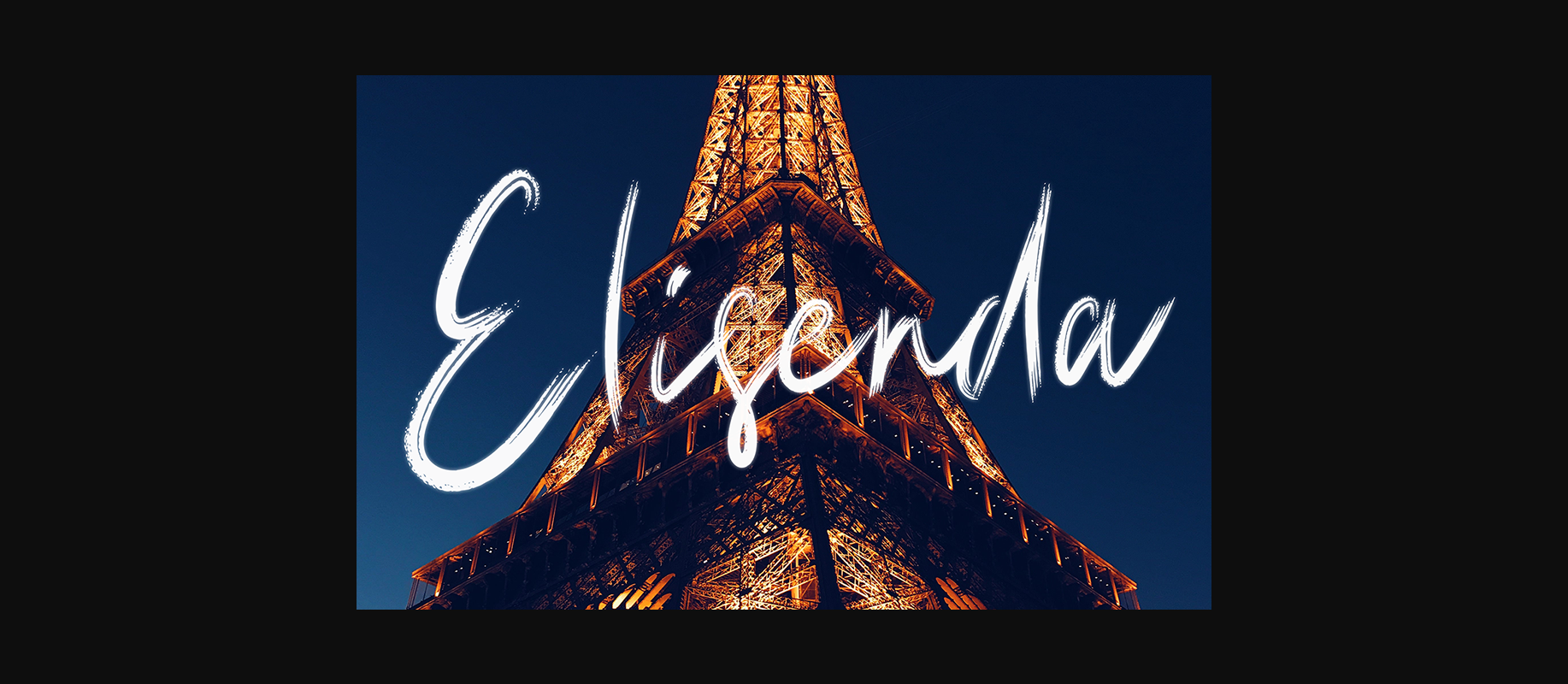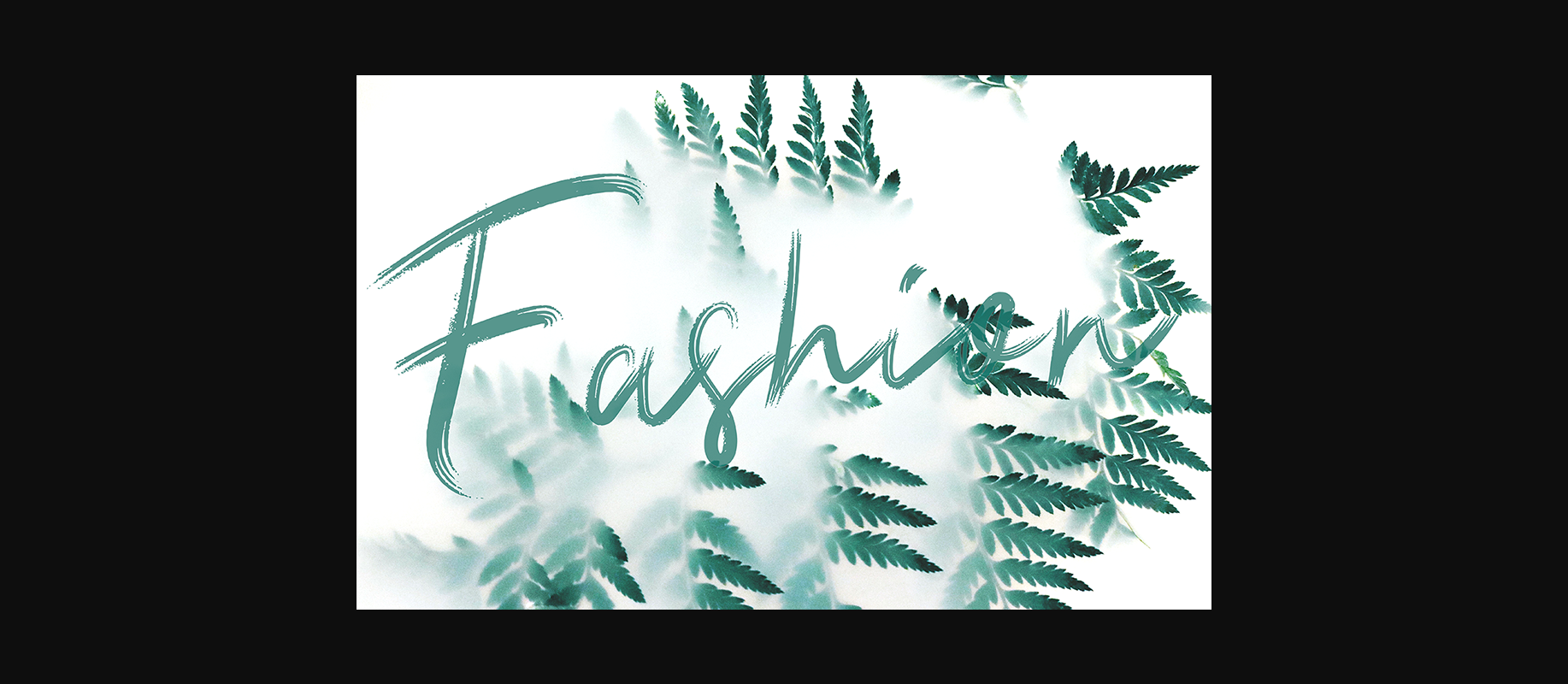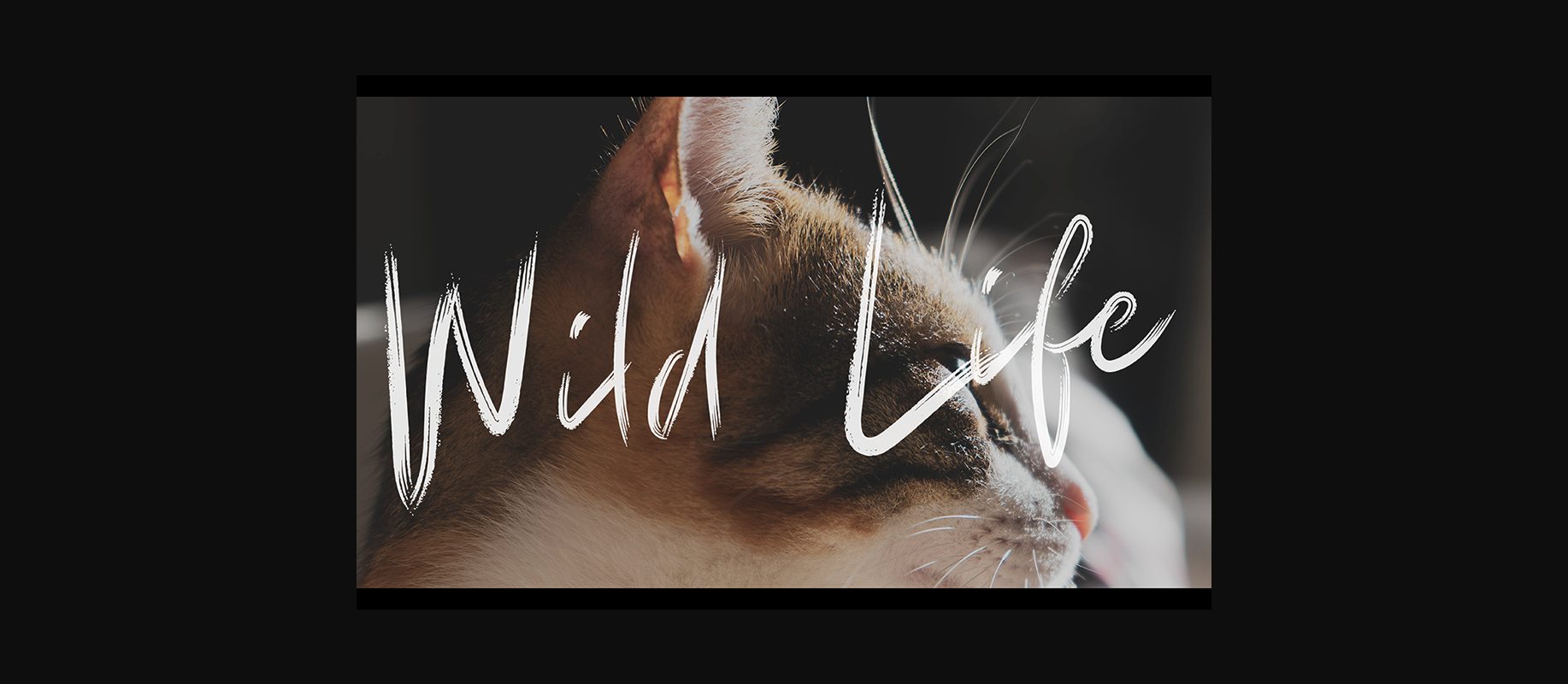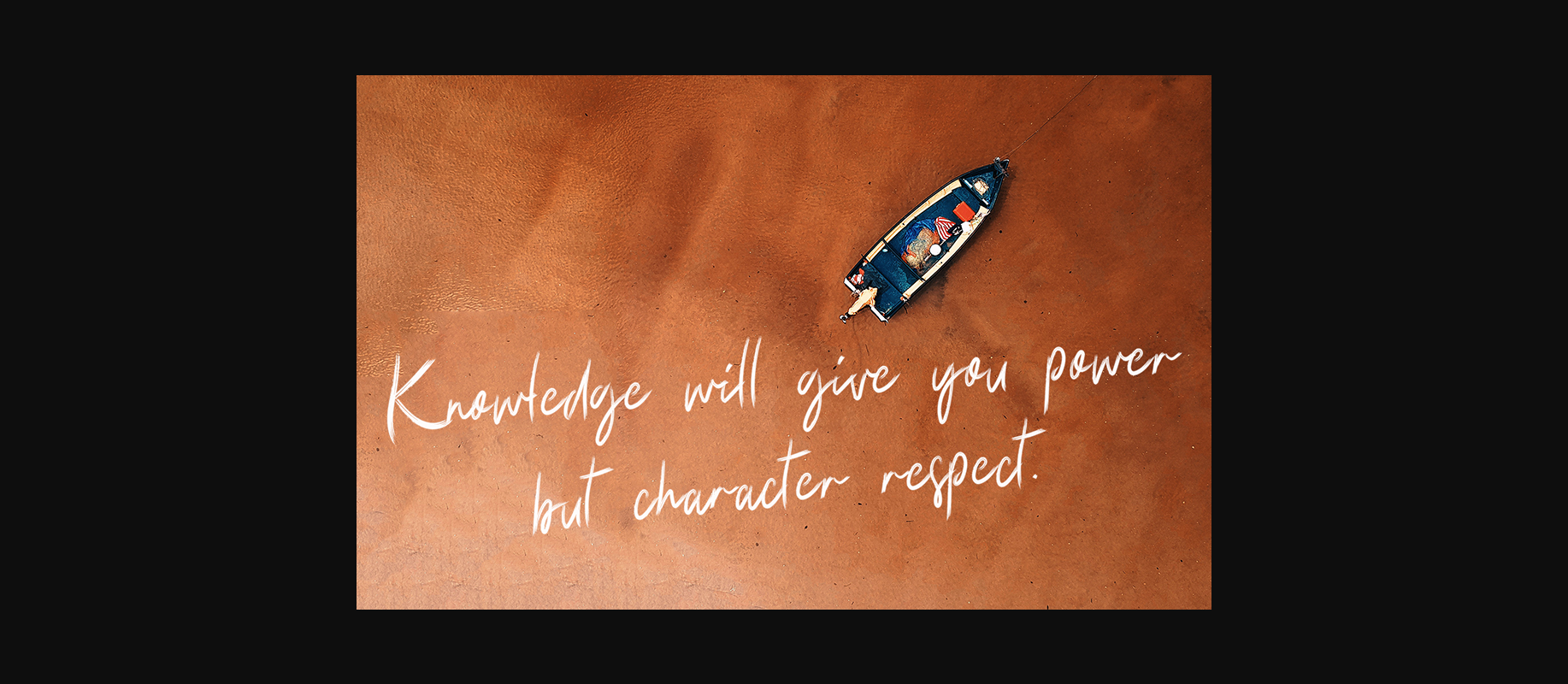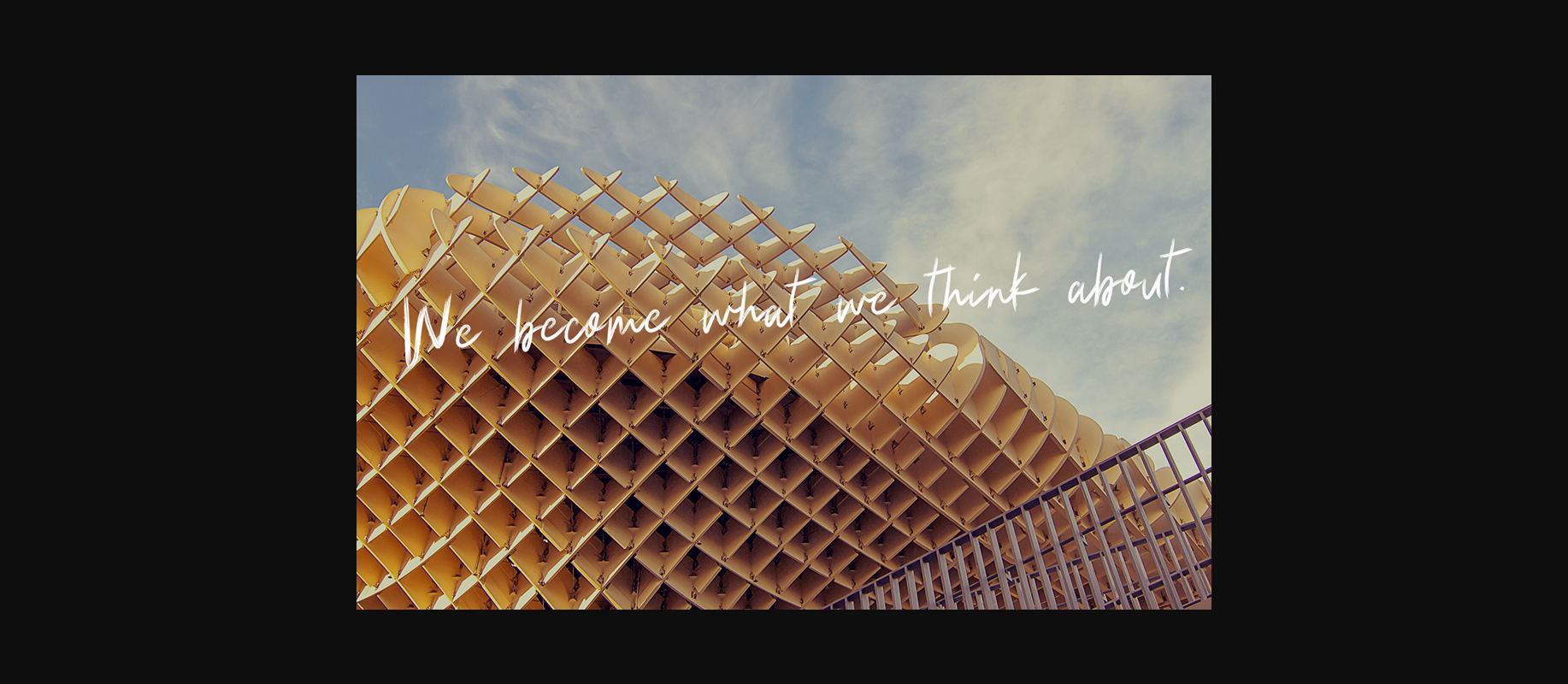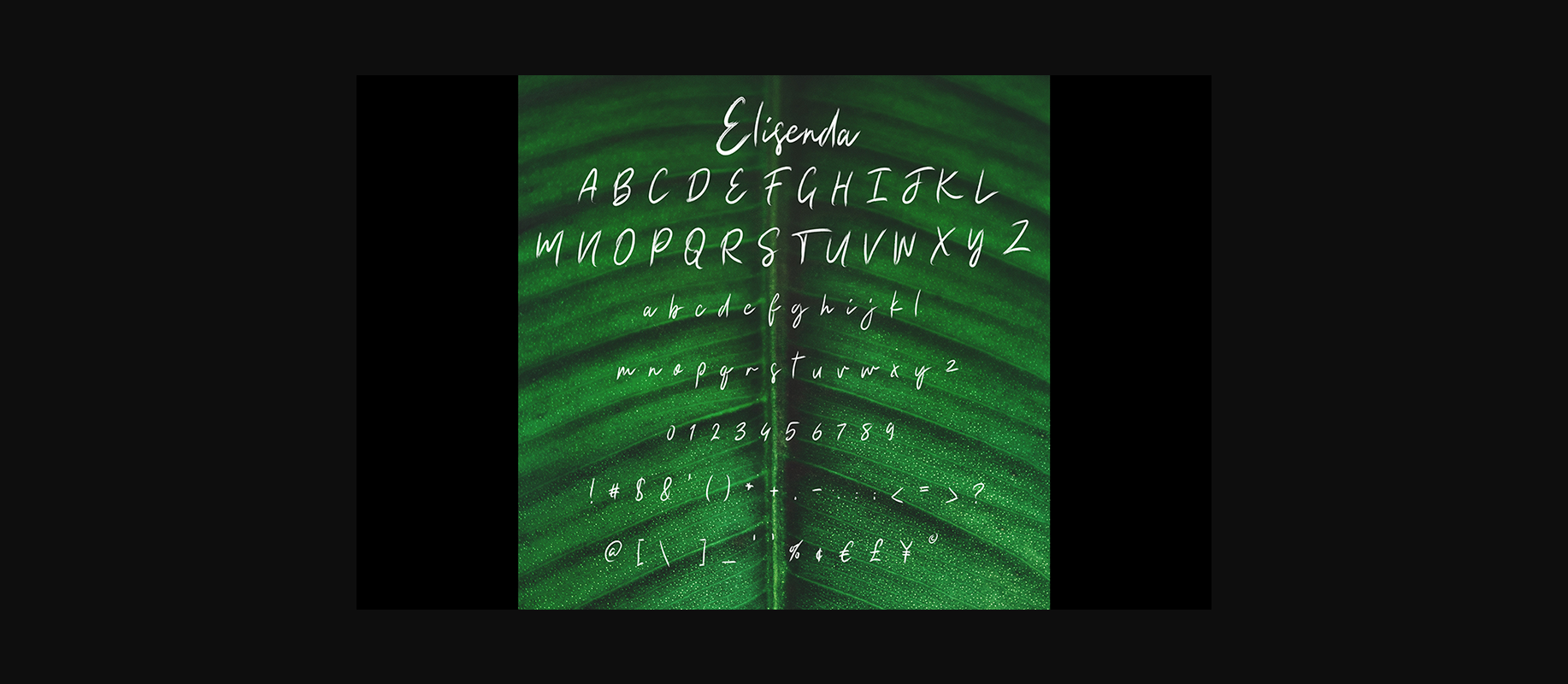
Elisenda Font
About Elisenda Font
The Elisenda is a playful brush font. It has a great readability and is perfect for invitations, logos, social media designs, labeling, covers, posters, printable projects, and much more!